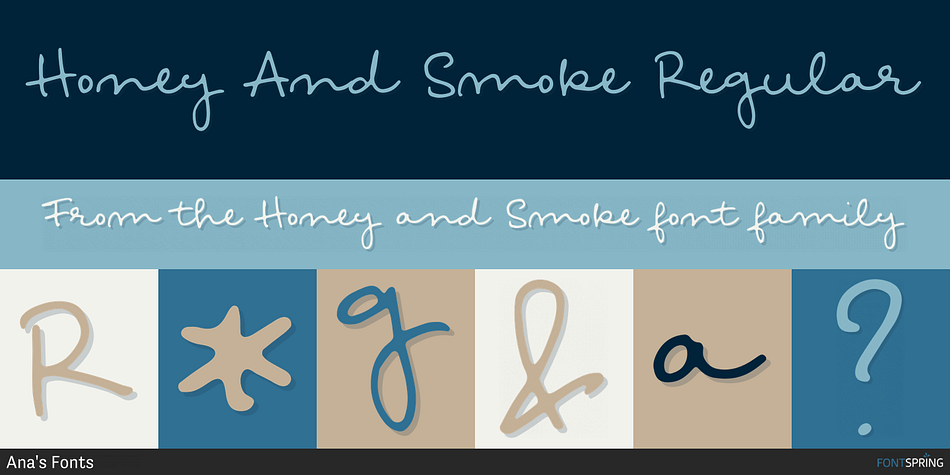
Honey And Smoke Regular
Designed by Ana Parracho, Honey and Smoke is a hand drawn, script and dingbat font family. This typeface has four styles and was published by Ana's Fonts.
Honey and Smoke is a handwritten script font and illustration collection, perfect to create cute handmade designs, such as logos, packaging, prints and postcards, patterns, and social media posts.
Honey and Smoke includes:
- A handwritten script font with tons of ligatures and a bonus slant version
- A dingbat font with 62 handmade line drawings, including fruits, vegetables and plants, with a bonus blackout version. The individual illustrations are also included in AI and PNG files.